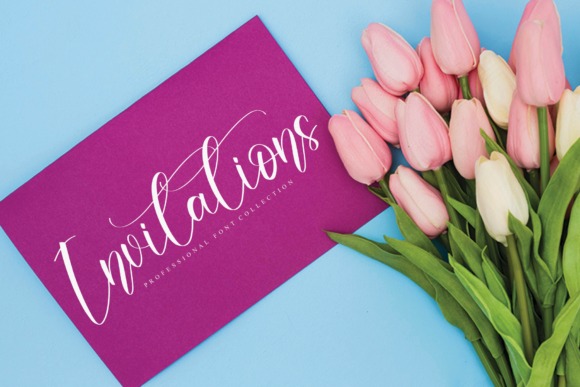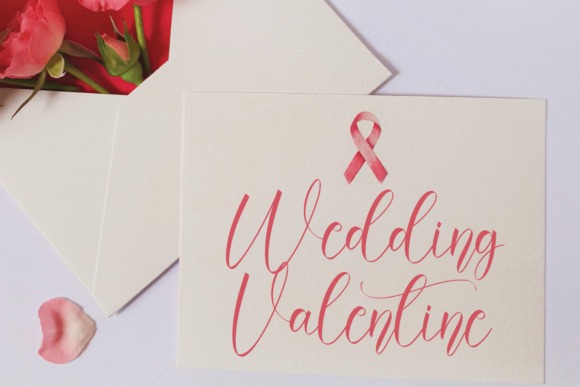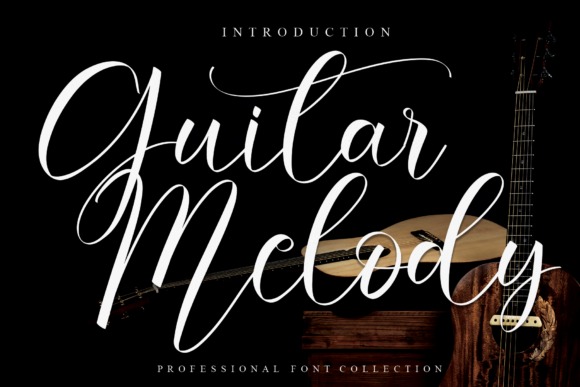
Guitar Melody Script Font
This is a flowing and sweet calligraphy typeface with characters that dance along the baseline. It will add a luxury spark to any design project that you wish to create!